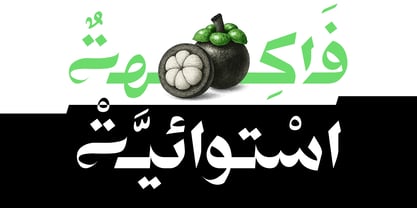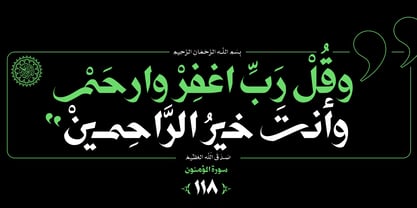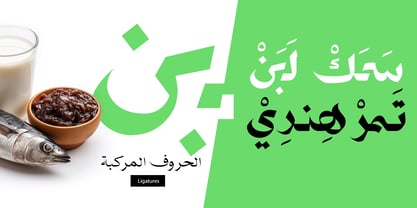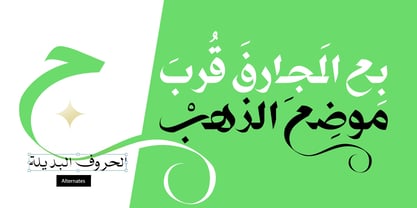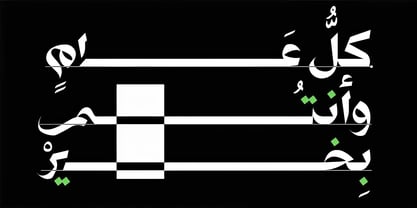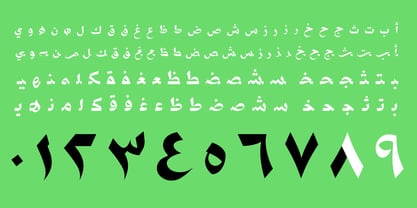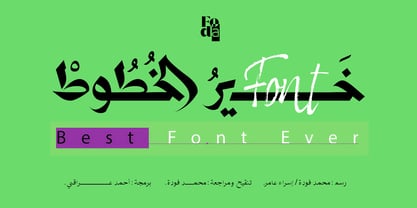
Best F. Ever Arabic
by Fo Da
The Best F. Ever Arabic Font Family was designed by Ahmed Eraqi, Nohamad Foda, Esraa Amer and published by Fo Da. Best F. Ever Arabic contains 1 styles. More about this family
“Best F. Ever Arabic” is a contemporary Arabic display typeface that combines high-contrast strokes with angular, geometric forms to create a bold, modern look. Inspired by traditional Naskh calligraphy yet reinterpreted through sharp terminals and dynamic diagonals, Best F. Ever Arabic delivers striking legibility for large-scale headlines, branding, and editorial use. Its carefully crafted uppercase-style letters and numerals maintain harmony across Latin and Arabic scripts, while the robust weight range—from delicate hairlines to emphatic blacks—offers maximum versatility. Ideal for luxury packaging, cultural publications, and digital interfaces, Best F. Ever Arabic confidently bridges heritage and innovation in any creative project.
Designers: Ahmed Eraqi, Nohamad Foda, Esraa Amer
Foundry: Fo Da
Best F. Ever Arabic